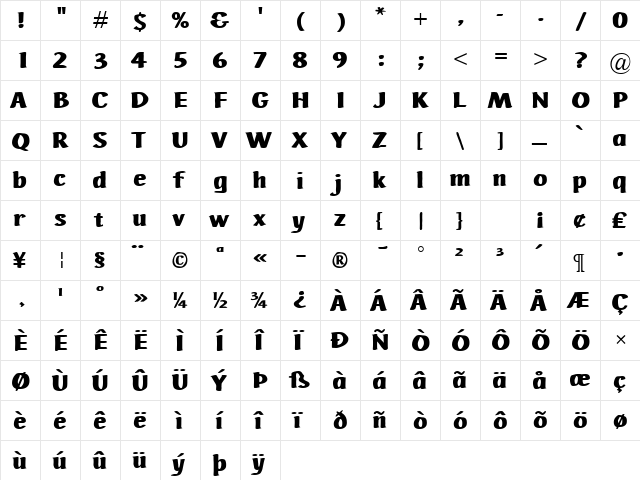
Ad Hoc Bis Regular Font Preview
Ad Hoc Bis Regular
Ad Hoc Bis Regular Font Details
Design Context for Ad Hoc Bis Typeface
Ad Hoc Bis offers clean, dependable letterforms without strong stylistic allegiance, making it a practical choice for designers who need flexibility.